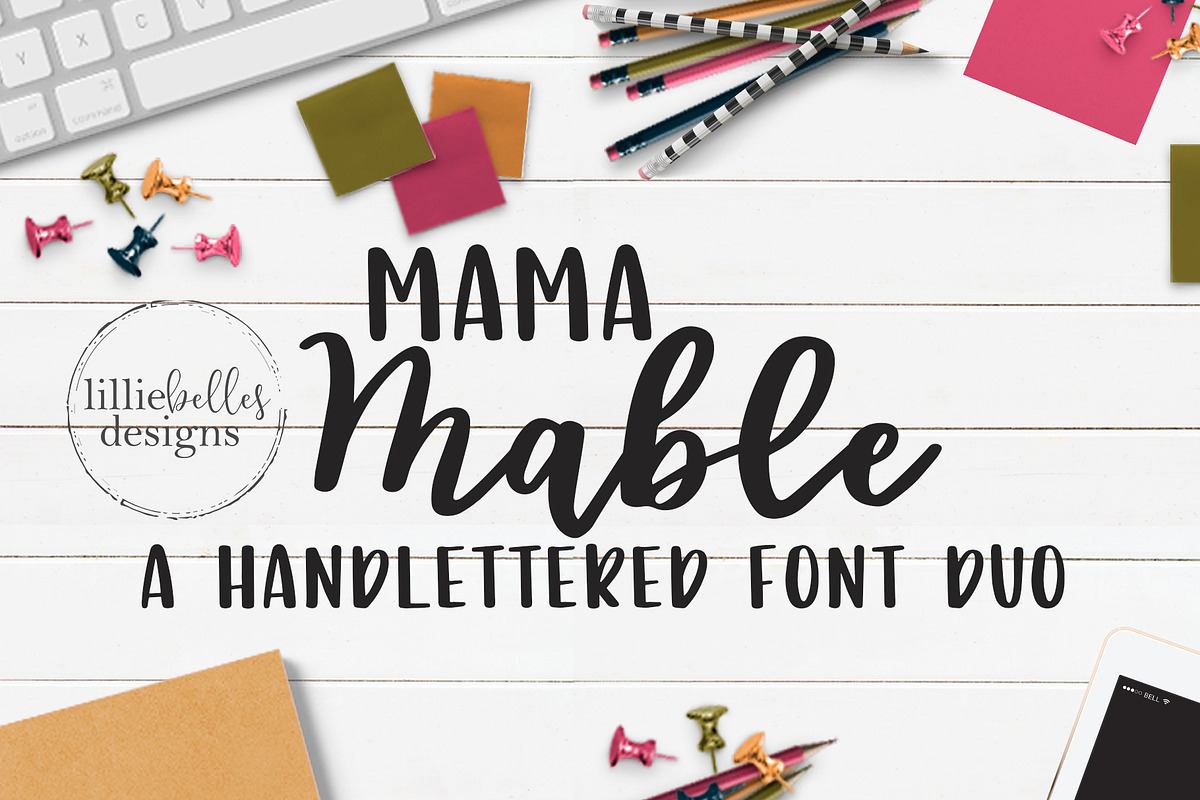
The Mama Mable Handlettered Font Free Download is a charming and whimsical hand-lettered typeface that brings a personal and creative touch to your designs. Perfect for logos, invitations, branding, and social media graphics, this font adds a fun and artistic flair to any project. Please note, for commercial use, a license must be purchased. You can download it for free for testing purposes.
With its playful strokes and casual style, the Mama Mable Handlettered Font Free Download is ideal for projects that require a friendly, informal feel. Whether you're designing for a creative business, making custom greeting cards, or working on event invitations, this font will give your designs a unique and personal touch.